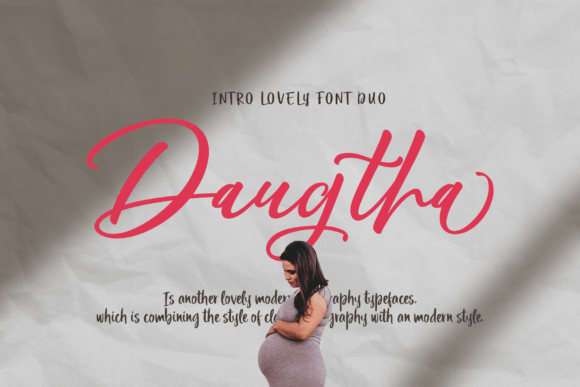
Introducing Daugtha Font: Elevate Your Designs with a Stylish and Modern Script Font Duo
In the world of typography, a font can make or break a design. A well-chosen font can elevate a creation from ordinary to extraordinary, while a poorly chosen one can have the opposite effect. If you’re a designer, artist, or crafty individual looking to take your designs to the next level, you’re in luck. Daugtha Font is a stylish and modern script font duo that’s sure to become an incredible asset to your font library.
What is Daugtha Font?
Daugtha Font is a modern script font duo that’s designed to add a touch of elegance and sophistication to any design. With its flowing lines, beautiful ligatures, and stylish glyphs, this font is perfect for a wide range of projects, from branding and advertising to packaging and digital media.
One of the standout features of Daugtha Font is its versatility. Whether you’re creating a logo, poster, or social media graphic, this font can adapt to any style or theme. Its modern script design makes it perfect for designs that require a touch of luxury, elegance, or refinement.
The Benefits of Daugtha Font
So, what makes Daugtha Font so special? Here are just a few benefits of using this amazing font:
- Stylish and Modern: Daugtha Font has a stylish and modern design that’s perfect for contemporary designs. Its flowing lines and beautiful ligatures make it a joy to use.
- Versatile: This font is versatile and can be used for a wide range of projects, from branding and advertising to packaging and digital media.
- Elegant: Daugtha Font has an elegant and sophisticated design that’s perfect for designs that require a touch of luxury or refinement.
- Experiment with Different Sizes: Daugtha Font looks great in a variety of sizes, from small and delicate to large and bold. Experiment with different sizes to find the one that works best for your design.
- Play with Ligatures: One of the standout features of Daugtha Font is its beautiful ligatures. Experiment with different ligatures to add a touch of elegance and sophistication to your design.
- Pair it with Other Fonts: Daugtha Font pairs well with a variety of other fonts. Experiment with different font combinations to find the one that works best for your design.
Who is Daugtha Font for?
Daugtha Font is perfect for a wide range of designers, artists, and crafty individuals, including:
- Graphic Designers: If you’re a graphic designer looking for a stylish and modern script font to add to your library, Daugtha Font is a great choice.
- Artists: If you’re an artist looking for a font to use in your mixed media or digital art, Daugtha Font is a great option.
- Crafty Individuals: If you’re a crafty individual who loves to create handmade cards, invitations, or other paper crafts, Daugtha Font is a great choice.
In conclusion, Daugtha Font is a stylish and modern script font duo that’s sure to become an incredible asset to your font library. With its flowing lines, beautiful ligatures, and stylish glyphs, this font is perfect for a wide range of projects, from branding and advertising to packaging and digital media. Whether you’re a graphic designer, artist, or crafty individual, Daugtha Font is a great choice.